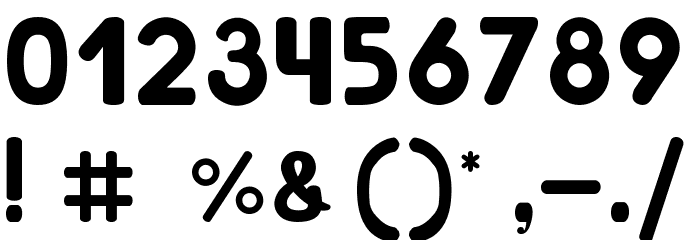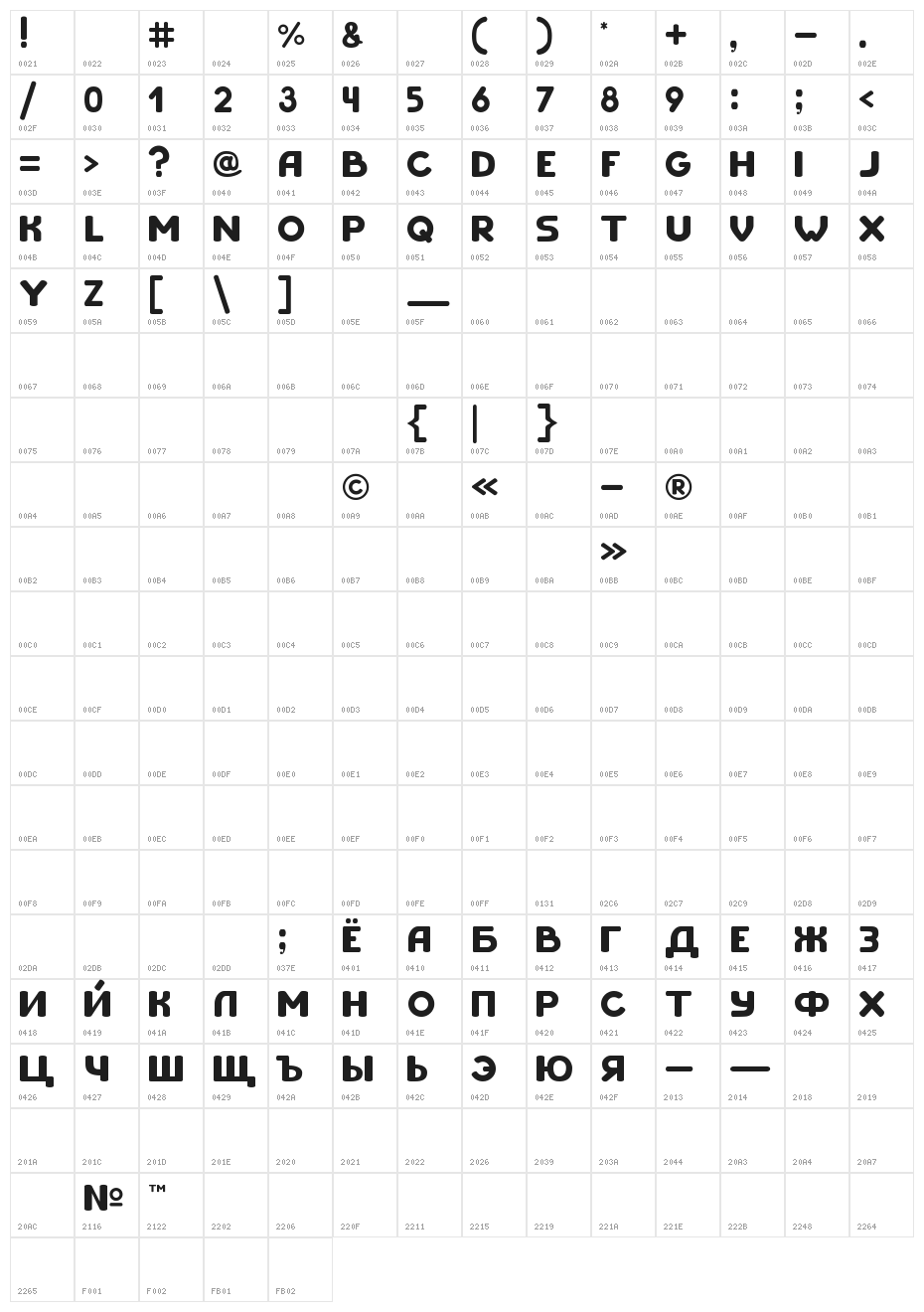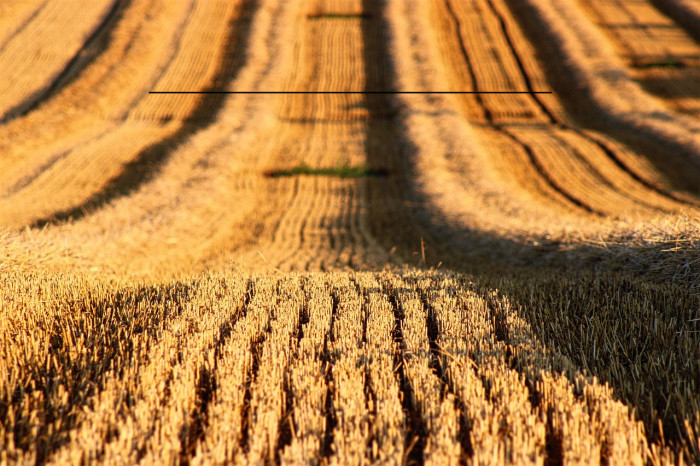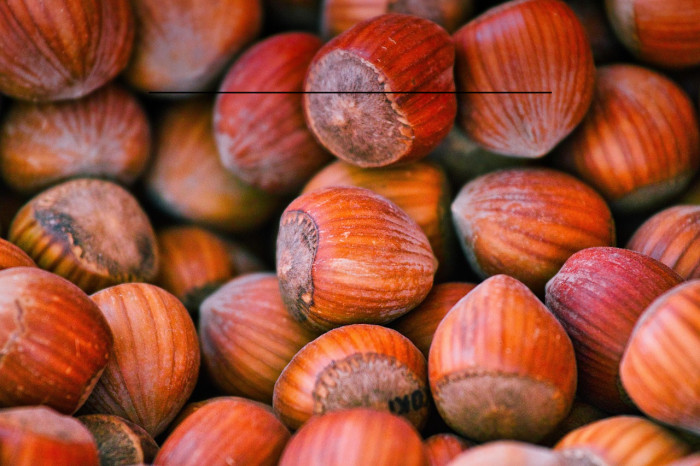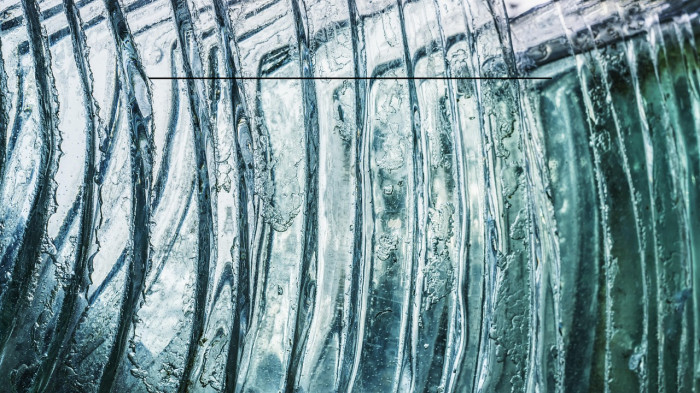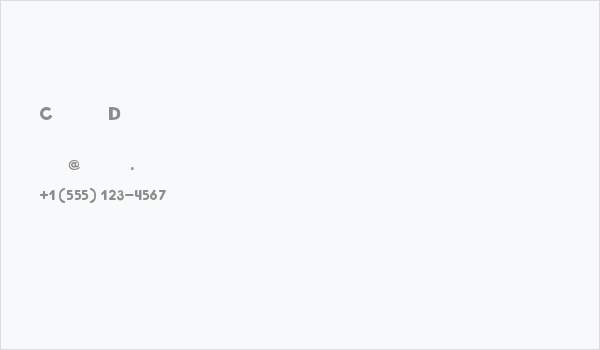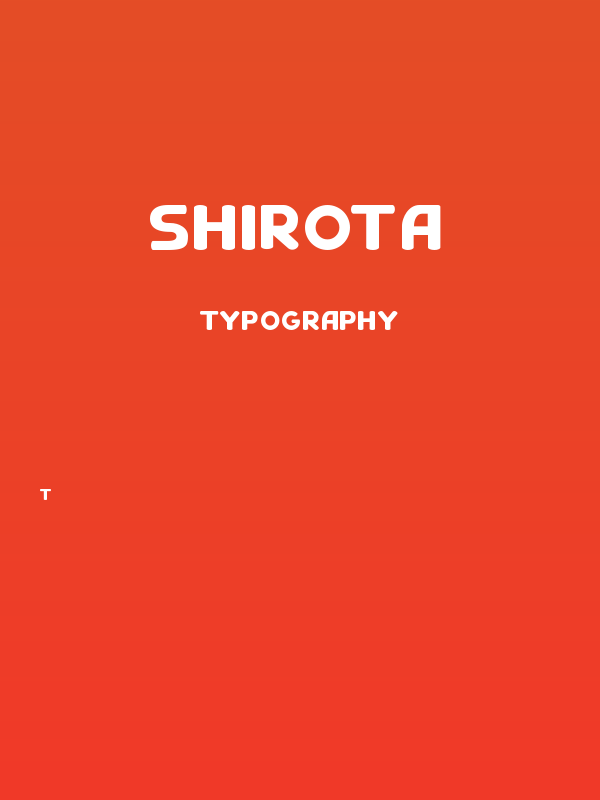
shirota Font
shirota Description
This font features a bold and playful design with rounded edges and a friendly appearance. The characters are evenly weighted, giving a uniform look across both uppercase and lowercase letters. The numbers and special characters maintain the same playful style, making them easily readable and visually appealing. The font's rounded corners and thick strokes provide a sense of warmth and approachability, making it suitable for a variety of creative projects. Its design is modern yet retains a classic feel, making it versatile for different uses.
| Proposed Projects | Ideal for children's books, playful branding, posters, and social media graphics. |